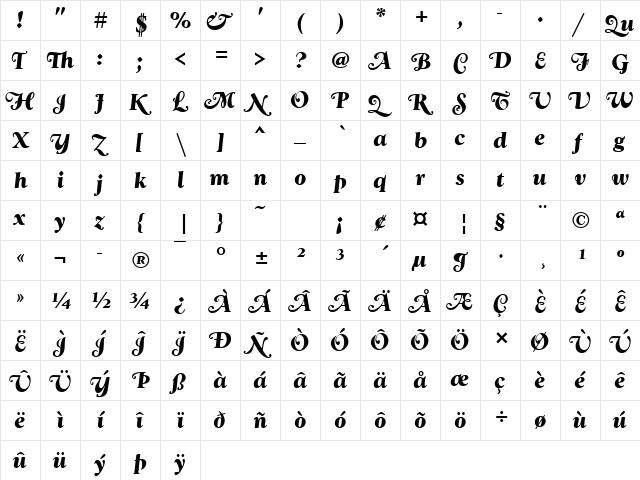
GoudySwaT Bold Italic
Design Context for GoudySwaT Typeface
GoudySwaT is a composed and adaptable typeface that performs quietly and consistently across a wide range of design contexts. The dynamic lean of this cut emphasises speed and emphasis in any layout. Its bold stroke weight gives it real presence on the page.
Pro Tip: Use GoudySwaT for emphasis, pull quotes, and subheadings where its slanted energy can add rhythm to the layout.